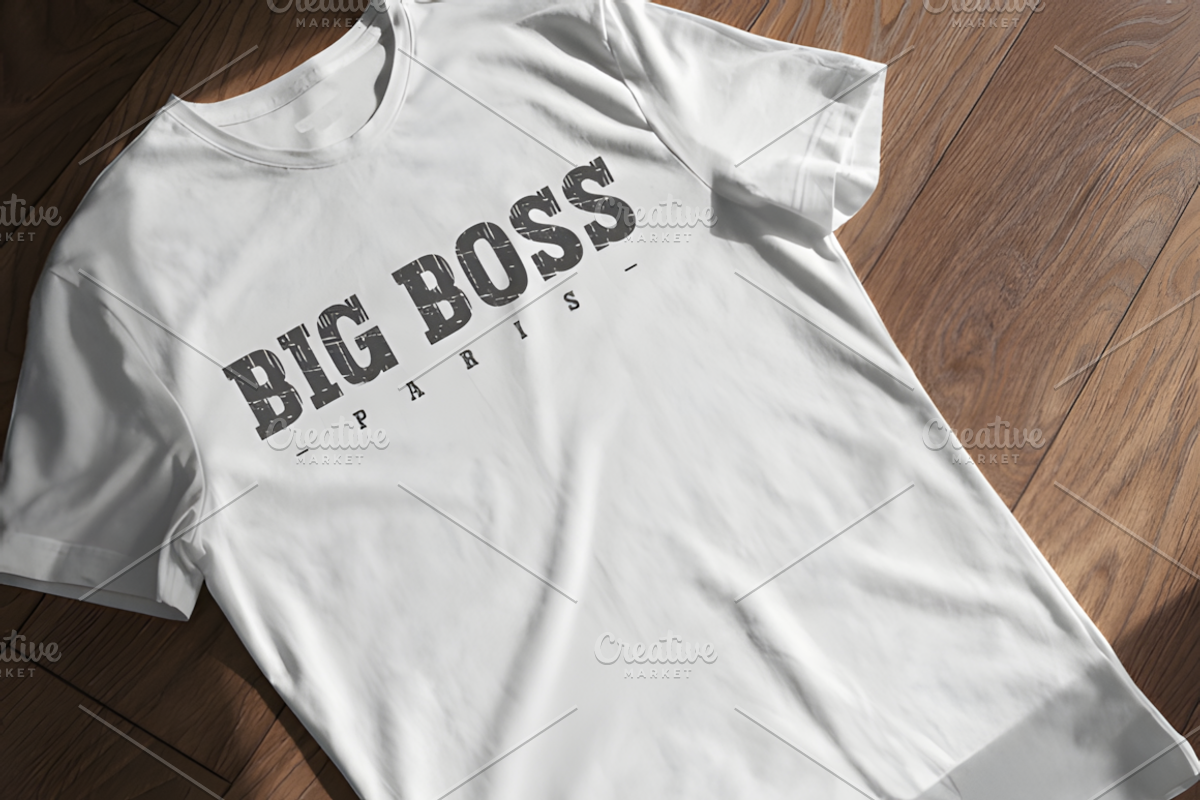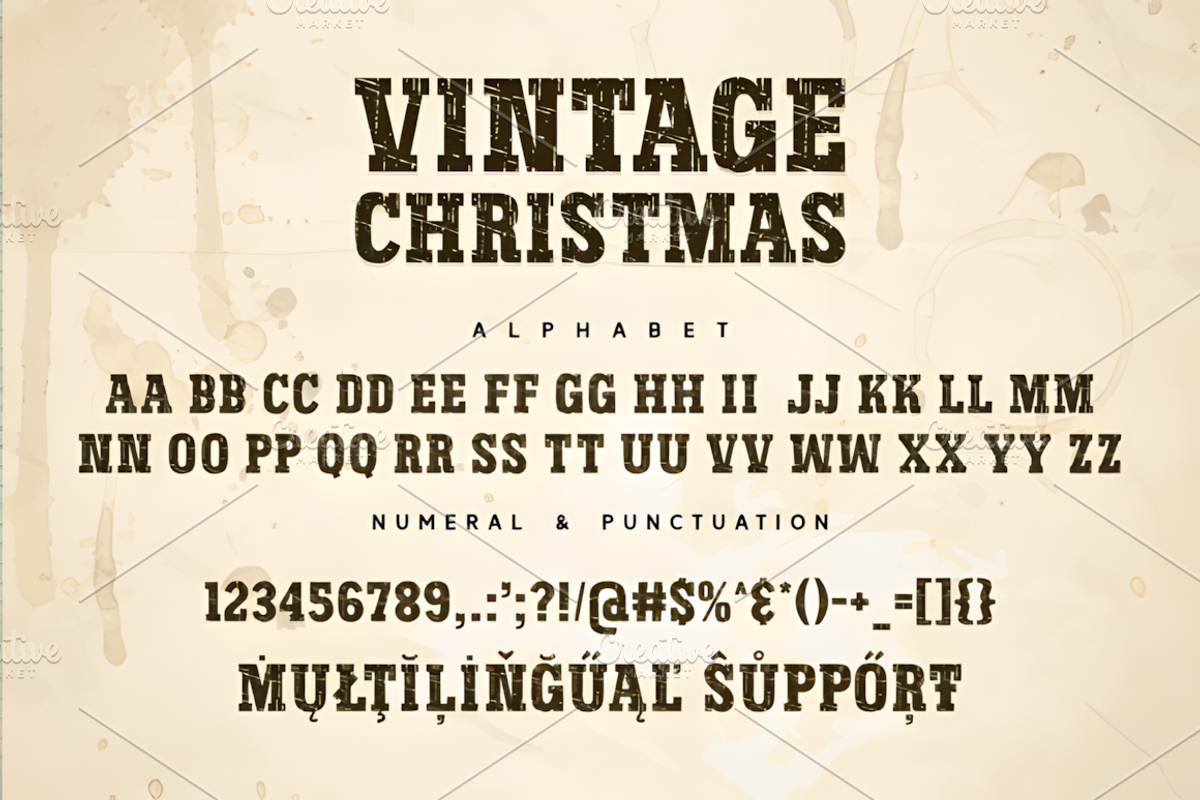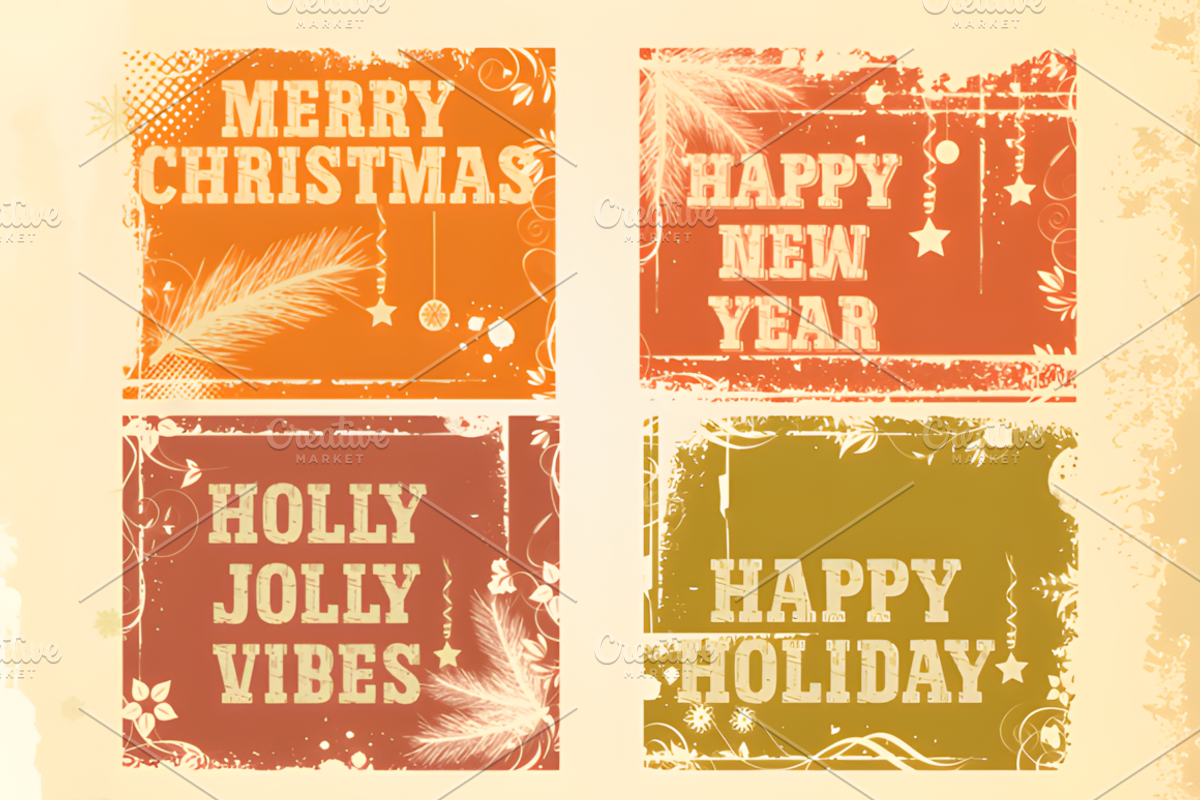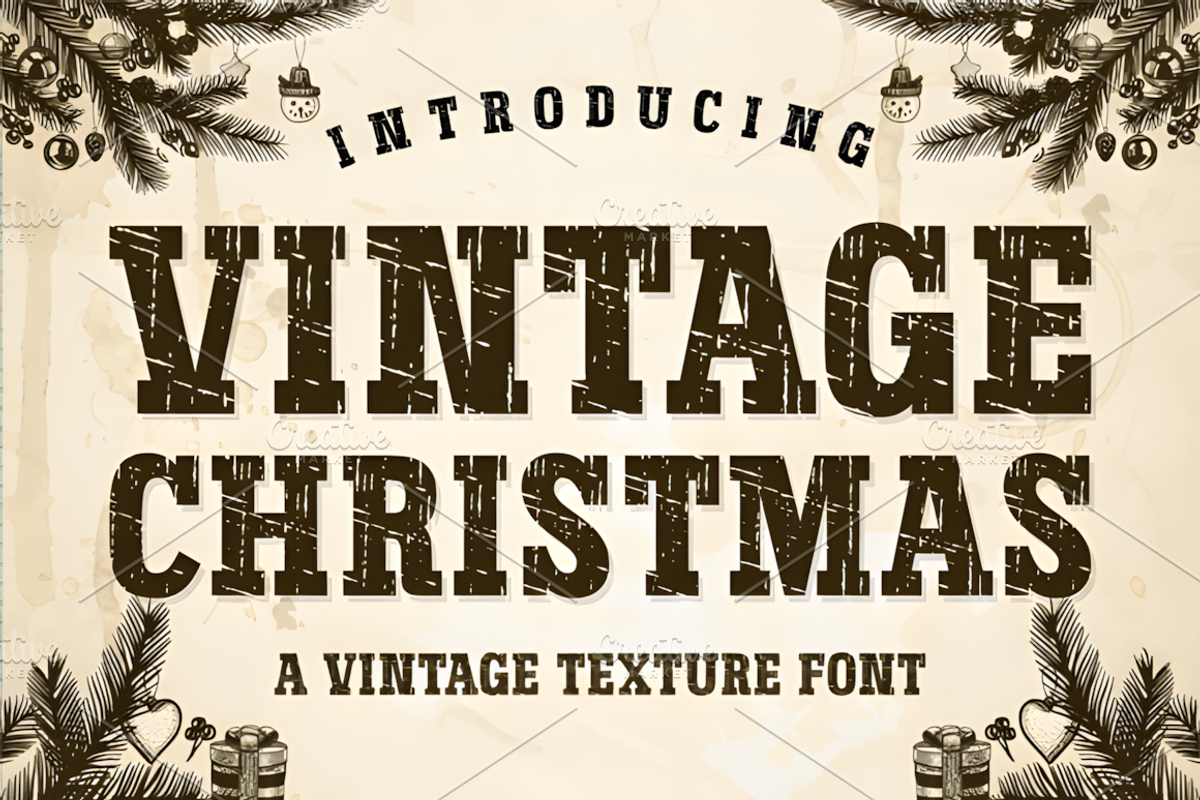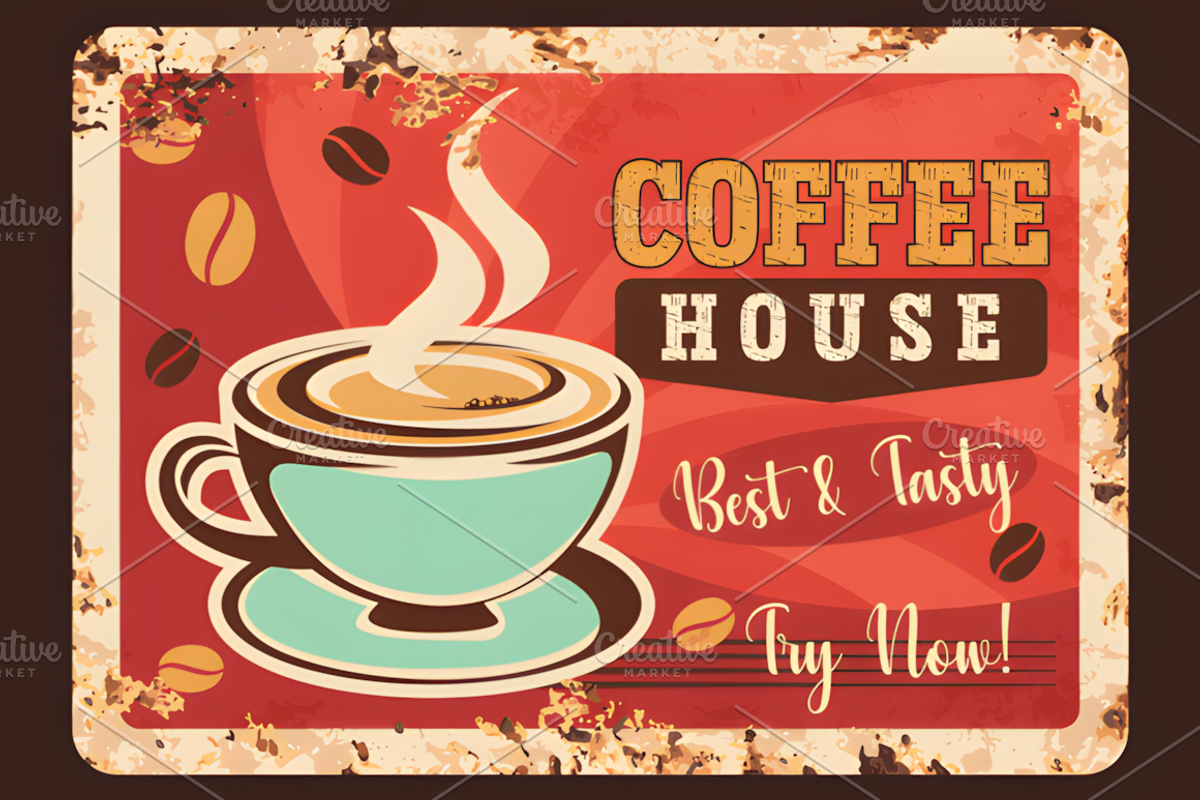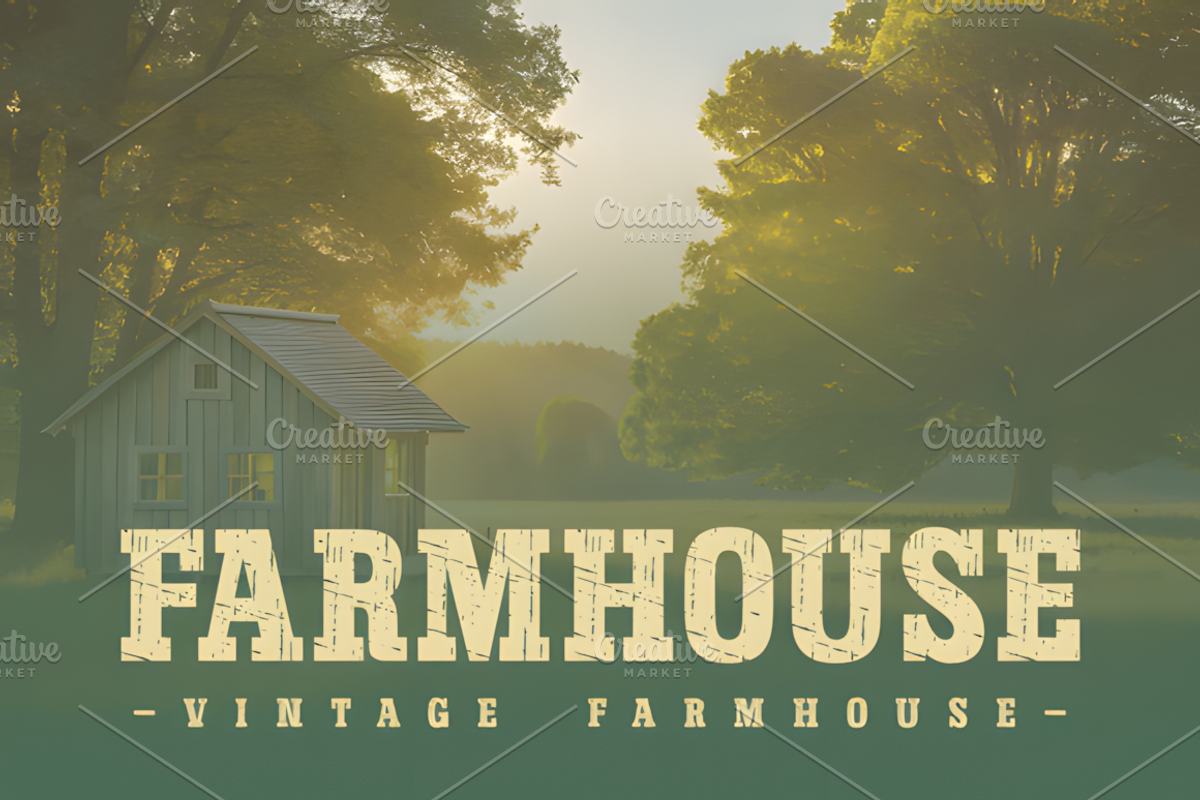
Vintage Christmas Font
Experience the nostalgic charm of “Vintage Christmas,” a texture font that transports you to the timeless elegance of the holiday seasons gone by. With its classic appeal and subtle textures, this font effortlessly captures the warmth of yesteryears. Ideal for festive invitations, holiday greetings, or any project requiring a touch of vintage flair, Vintage Christmas adds a touch of timeless sophistication to your typography. Embrace the spirit of the season with this effortlessly nostalgic font.